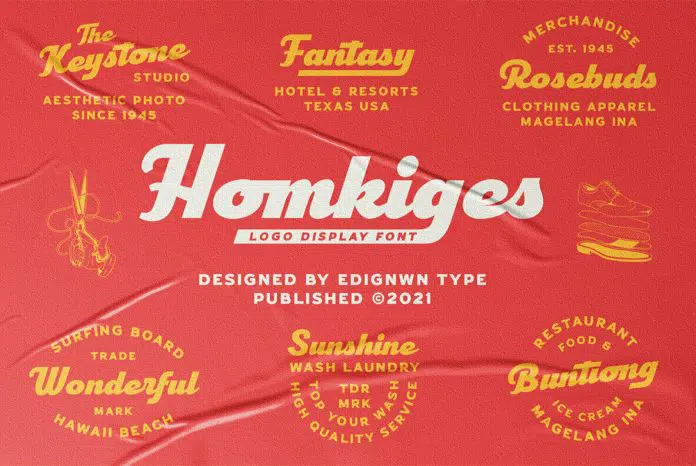
Homkiges Font
Homkiges Font is perfect for quirky brand identity, playful product packaging, creative children's materials, unconventional logo design, fun social media graphics, imaginative poster layouts, unique advertising campaigns, artistic expression projects, experimental typography applications, and memorable marketing materials.
Homkiges Font is exciting because it breaks conventional typography rules through wonderfully unconventional letterforms that celebrate creative freedom and artistic expression with delightful unpredictability. This imaginatively designed typeface combines quirky personality with functional readability, making it perfect for brands that want to communicate creativity, originality, and fearless innovation that stands out from mainstream design approaches.
The Homkiges Font family includes distinctive weights with unconventional character styling, featuring unique proportions and creative design elements. The font showcases experimental letterform constructions, playful geometric variations, and artistic character details that create a comprehensive typographic system for creative and unconventional design applications.
Homkiges Font Free Download offers designers access to premium experimental typography that brings authentic creative character to contemporary design projects. This artistically crafted typeface has been developed to celebrate typographic innovation while ensuring essential readability for professional applications. The font's unique personality and unconventional appeal make it ideal for creative agencies, artistic brands, and innovative companies seeking distinctive visual identity.
The creative uniqueness of Homkiges Font makes it an invaluable tool for design studios, artistic ventures, and innovative brands that need typography capable of communicating originality and creative thinking. The font's unconventional character helps establish immediate associations with artistic innovation, creative problem-solving, and unique perspectives that appeal to audiences appreciating original design and artistic expression.
Creative agencies, art galleries, and innovative startups consistently choose Homkiges Font for its ability to convey creative authenticity and artistic sophistication through typography. The font excels in applications where establishing creative credibility and unique brand positioning are essential to success, making it particularly effective for design services, artistic products, and creative industry professionals targeting design-conscious audiences.
This font's comprehensive character set includes uniquely-styled letterforms, creative numerals, experimental punctuation marks, and artistic symbols that support innovative typography composition. The consistent creative vision and unconventional styling ensure memorable visual impact while maintaining the experimental character that makes Homkiges Font Free Download perfect for artistic and creative design projects.